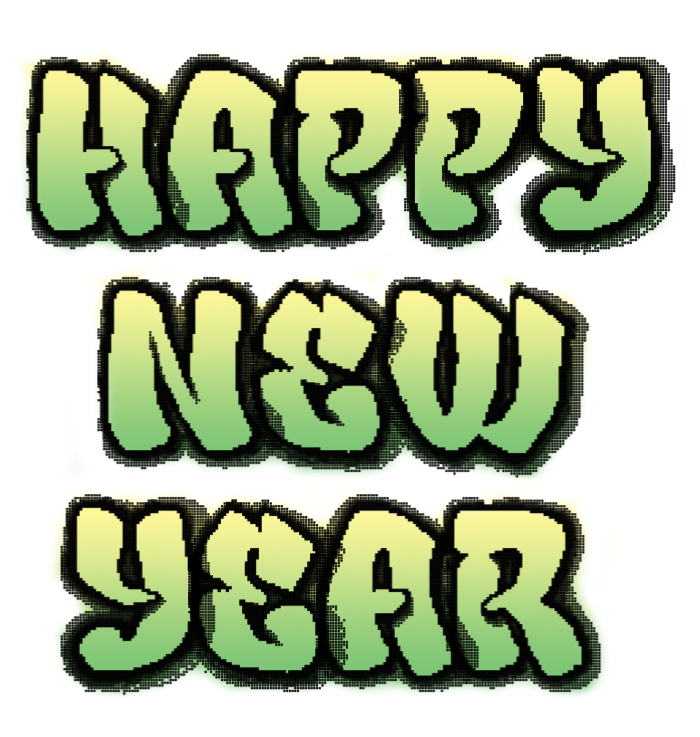
Nice graffiti font :)
Amazing work, man! C and G and U and V are a bit too similar, though. 10/10, though i'd really like to see some numbers and punctuation.
Wow.
Wow! I missed this beauty when it came out. The form has an organic (almost cuddly) feel to it and the shading is magnificent.
@winty5. Yeah. As this was a "throw-up" meant to be done fast, I made things as modular as possible. I did modify the G and V though.
That Upper Case shadow overlapping subsequent characters works extremely well. I could see these cut as large stencils and sprayed on a wall.
I may not be able to have to use for my own, but this is a really cool font!  Very inspirational for an old-school graffiti fan like myself.  Great work!
wow this is pretty cool 30/10